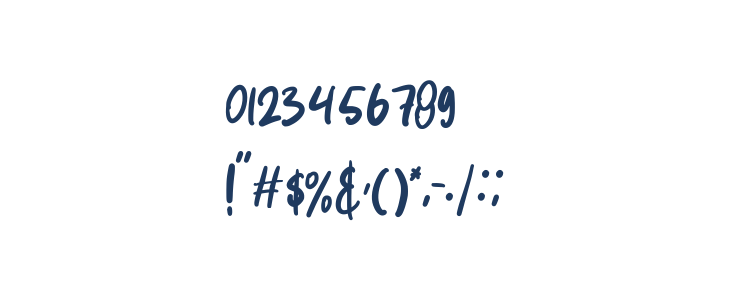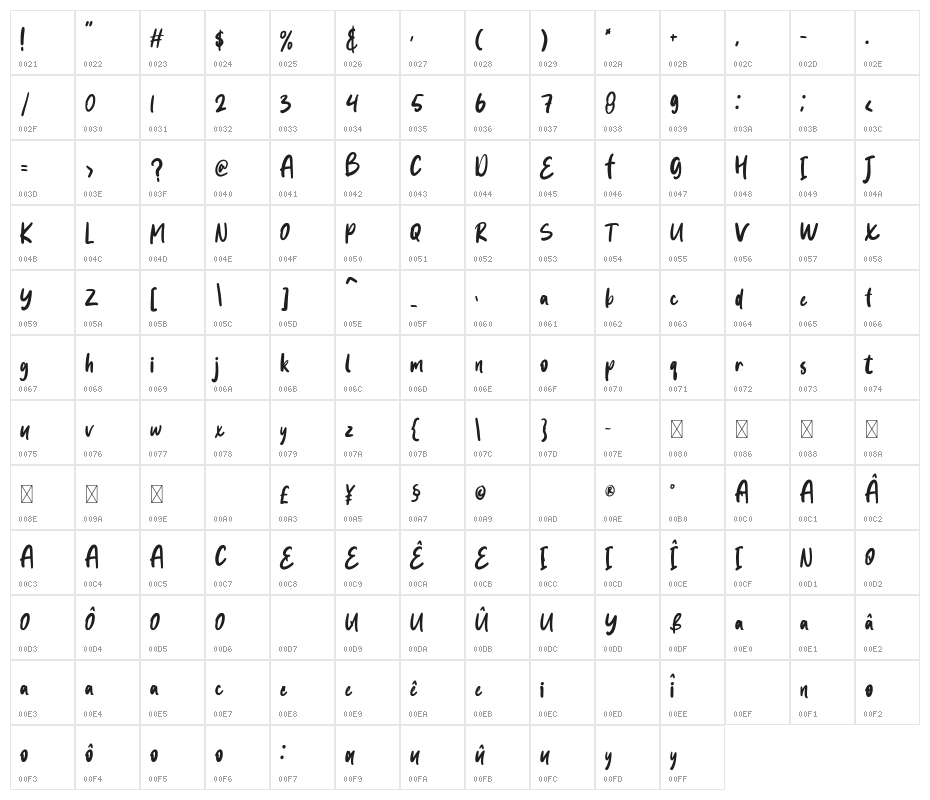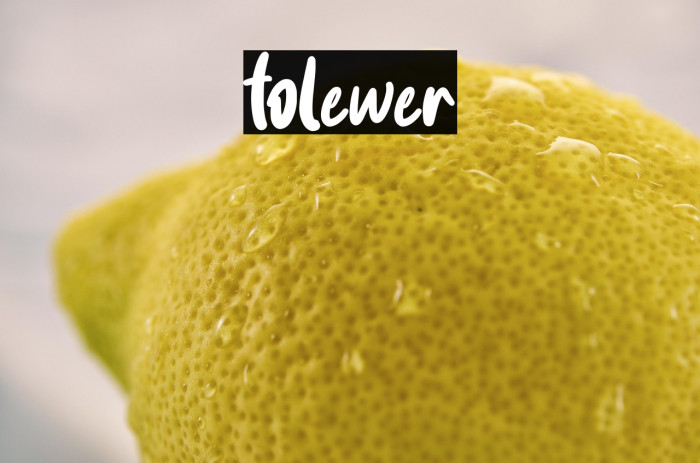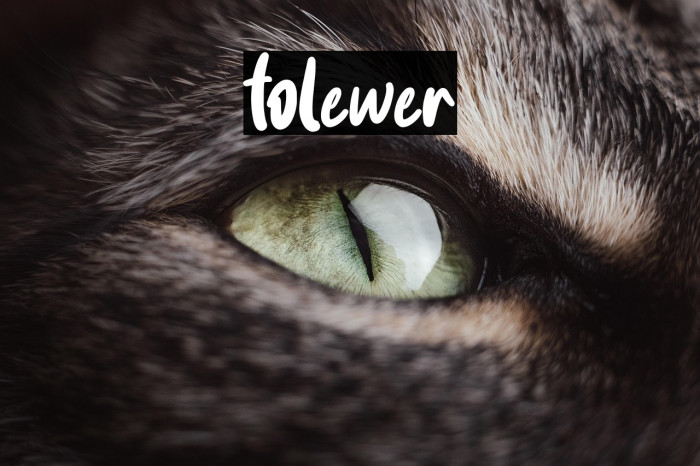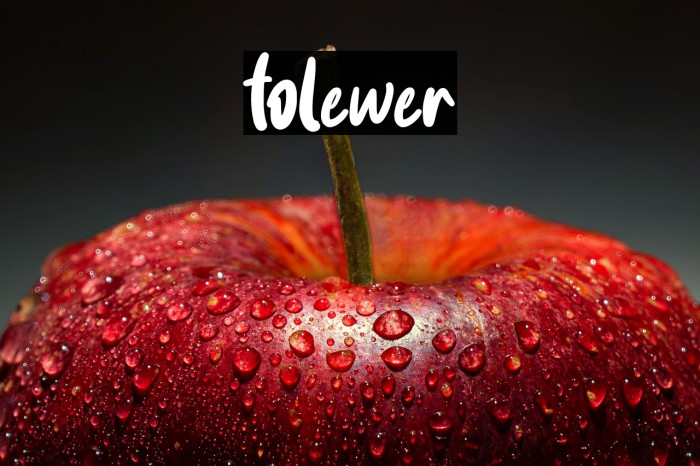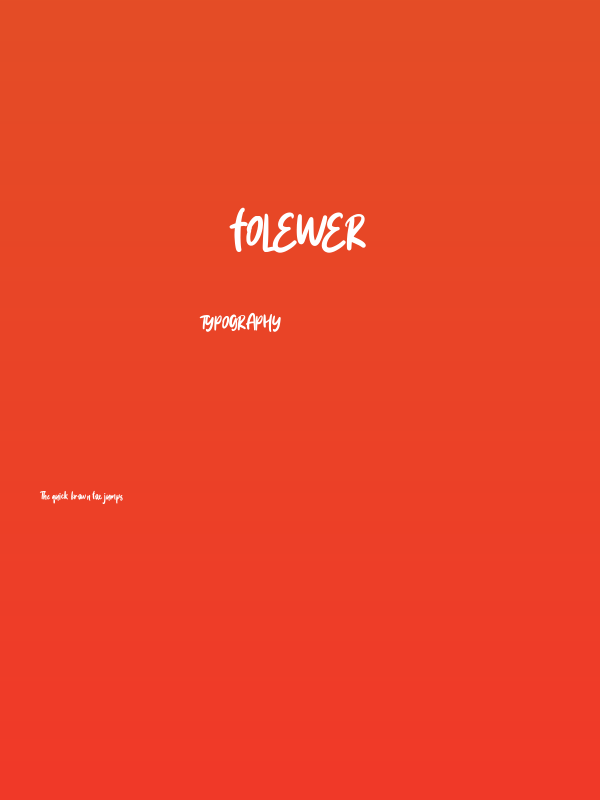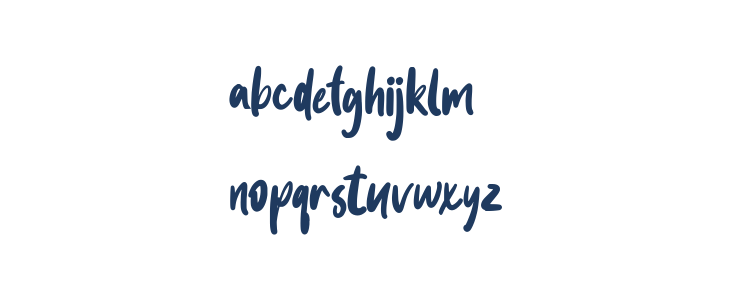
folewer Font
folewer Description
This font exudes a playful and energetic vibe, characterized by its handwritten style with bold, flowing strokes. The uppercase letters are tall and slightly slanted, giving a sense of movement and dynamism. The lowercase letters maintain a consistent style, with rounded edges and a casual, friendly appearance. Numbers and special characters follow the same aesthetic, ensuring a cohesive look across all text elements. The font's informal style makes it ideal for creative projects that require a personal touch.